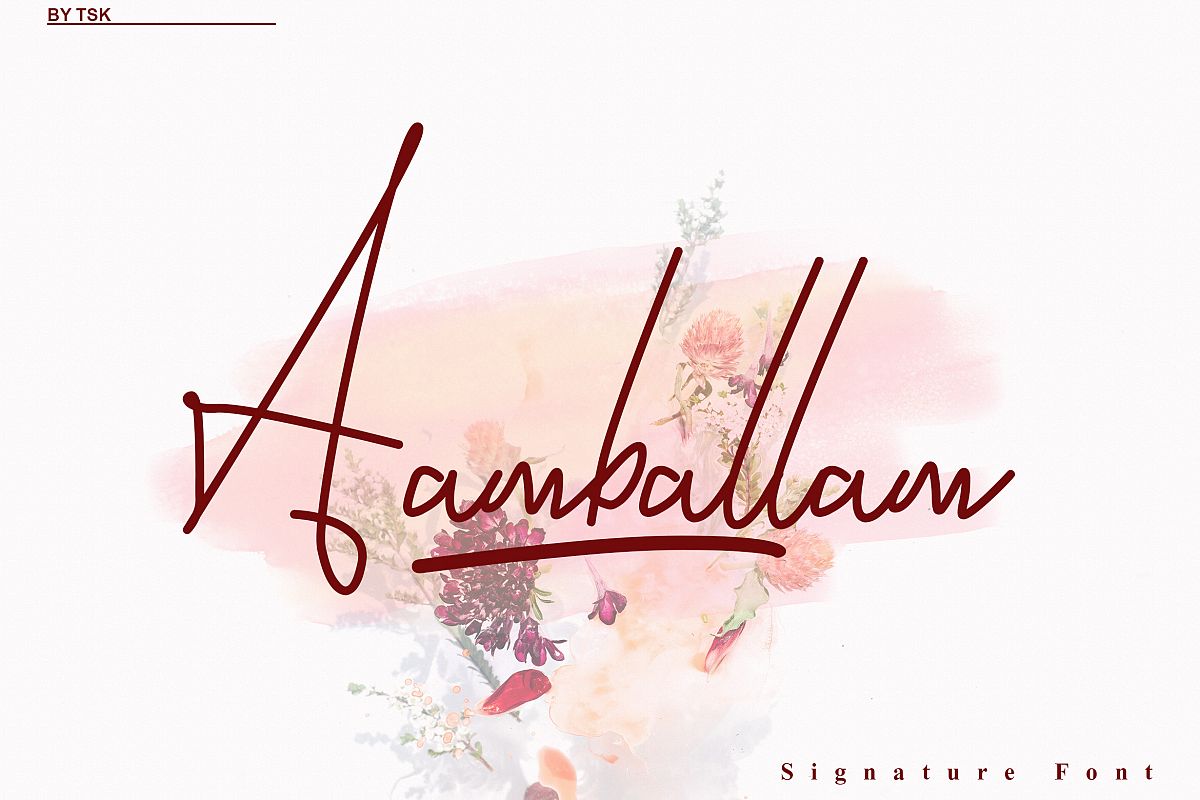
Aamballam -/ Signature Fonts
Aamballam-Extra
Aamballam-Regular
fill in a font that is purely handwritten, has its own characteristics with a Script font style. This is perfect for invitations, signatures, blogs, social media, business cards, brands This font feature is;
• Standard ligature
• Alternative Style
• Complete letters